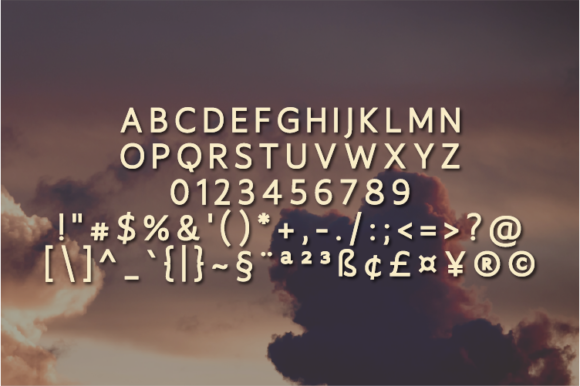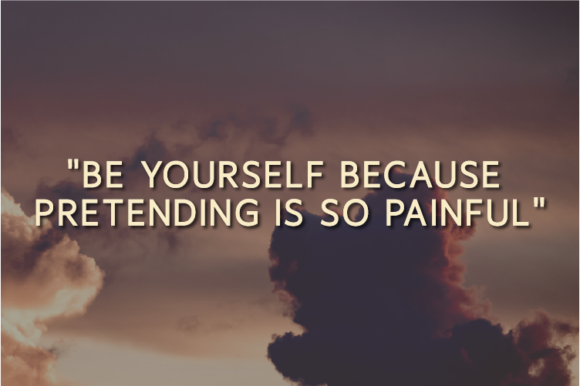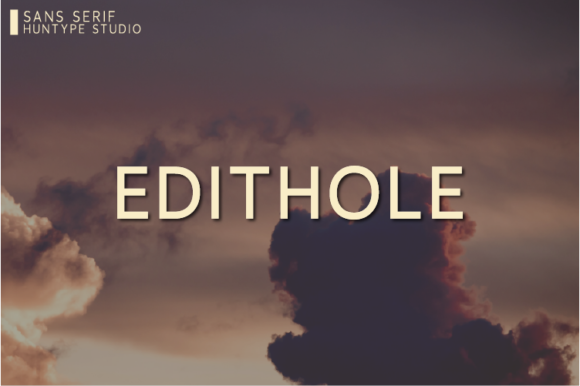
Introducing Edithole Font: The Ultimate Minimalist Sans Serif for Designers
In the world of typography, fonts play a crucial role in conveying messages, expressing creativity, and enhancing the visual appeal of designs. For designers and crafters, finding the perfect font can be a daunting task, especially when working on a project that requires a clean, simple, and versatile typeface. This is where Edithole Font comes into play – a minimal and clean sans serif font that has the potential to become your go-to font for a wide range of designs.
What Makes Edithole Font Stand Out?
Edithole Font boasts a neat and simple style that makes it an excellent choice for various design projects. Its minimalist approach ensures that the font remains legible and easy to read, even at smaller font sizes. The clean lines and lack of embellishments give Edithole a modern and sophisticated look, making it perfect for designs that require a professional touch.
Key Features of Edithole Font
- Minimalist Design: Edithole Font features a clean and minimalist design that ensures your text remains clear and easy to read.
- Sans Serif: The font is a sans serif typeface, which means it doesn’t have the small lines or flourishes at the ends of the letters.
- Versatile: Edithole Font is suitable for a wide variety of designs, including logos, headings, body text, and more.
- Legible: The font is highly legible, even at smaller font sizes, making it perfect for designs that require a lot of text.
Use Cases for Edithole Font
Edithole Font is an incredibly versatile typeface that can be used in a variety of design projects, including:
- Logos and Branding: The clean and simple design of Edithole Font makes it an excellent choice for logos and branding materials.
- Web Design: The font is perfect for web design projects, including website headers, body text, and more.
- Print Design: Edithole Font can be used in print design projects, such as brochures, flyers, and business cards.
- Digital Art: The font can also be used in digital art projects, such as illustrations, graphics, and more.
Why Designers and Crafters Love Edithole Font
Designers and crafters love Edithole Font for its simplicity, versatility, and legibility. The font is easy to work with and can be used in a variety of design projects. Additionally, the font is highly customizable, allowing designers to experiment with different styles and effects.
Tips for Using Edithole Font
Here are some tips for using Edithole Font in your design projects:
- Pair with Other Fonts: Edithole Font can be paired with other fonts to create a unique and interesting design.
- Experiment with Colors: The font looks great in a variety of colors, so don’t be afraid to experiment with different color schemes.
- Use Different Sizes: Edithole Font can be used at a variety of font sizes, from small body text to large headings.
In conclusion, Edithole Font is a minimal and clean sans serif font that is perfect for designers and crafters looking for a versatile and legible typeface. Its simplicity, versatility, and legibility make it an excellent choice for a wide range of design projects. Whether you’re working on a logo, website, or print design project, Edithole Font is sure to become your go-to font.